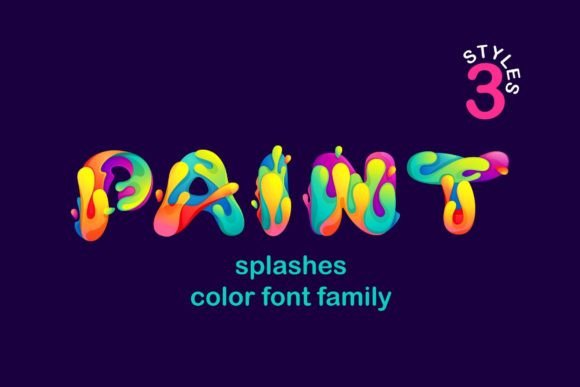
Introducing Paint Splashes Font, the ultimate display font for creative and bold individuals! Created by the talented kaer_cf, this font family is perfect for those looking to add a splash of color and vibrancy to their designs. With its brightly colored letters and multicolor icon, Paint Splashes Font is sure to capture the attention of anyone who comes across it.
Whether you're designing positive art, children's products, or eye-catching advertising, Paint Splashes Font is the perfect choice. The font's multicolor icon, which features a beautiful glow and gradient effect, is perfect for creating a memorable and unique brand identity. Imagine your brand's name in bold and bright letters, standing out from the competition with ease!
What's more, Paint Splashes Font is a color font, meaning that all of the letters in this font are colored brightly and vividly with colors overlay. This makes it incredibly easy to incorporate into your designs without having to worry about adding colors manually. With Paint Splashes Font, you can create vibrant and colorful designs in no time at all.